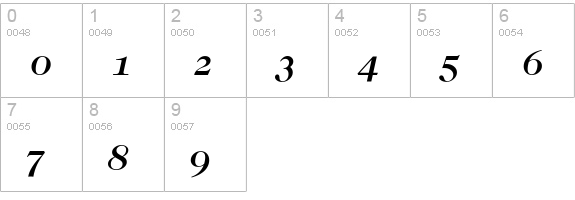
Caslon-Osf-Medium-Italic is a balanced, medium-weight, italic variant in the Caslon typeface family \xE2\x80\x94 well suited to sub-headlines, navigation, and balanced editorial work.
Caslon-Osf-Medium-Italic is a classic and elegant font that exudes sophistication and style. With its graceful slant and medium weight, this font is perfect for adding a touch of flair to any design project. The italicized form of Caslon-Osf-Medium-Italic lends a sense of movement and dynamism to text, making it stand out on the page. What makes Caslon-Osf-Medium-Italic even more appealing is that it is available for free download at FontsMarket.com. This means that you can easily access this beautiful typeface and use it in your projects without any cost. Whether you are designing a website, creating marketing materials, or working on a personal project, Caslon-Osf-Medium-Italic is a versatile and stylish font choice that will elevate your work to the next level. Download it today and discover the beauty and versatility of this timeless typeface.